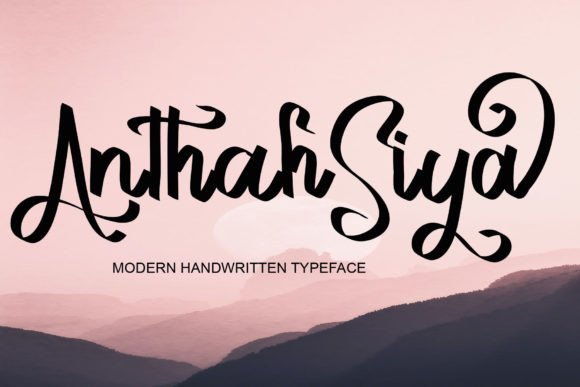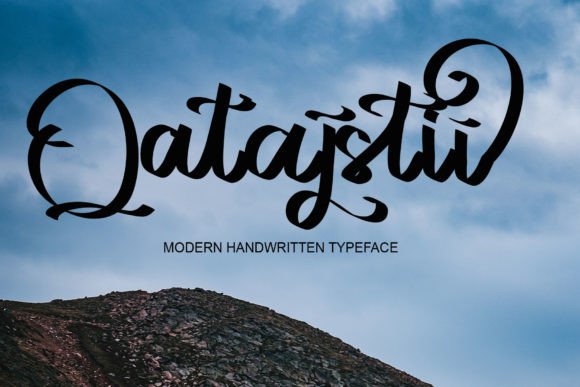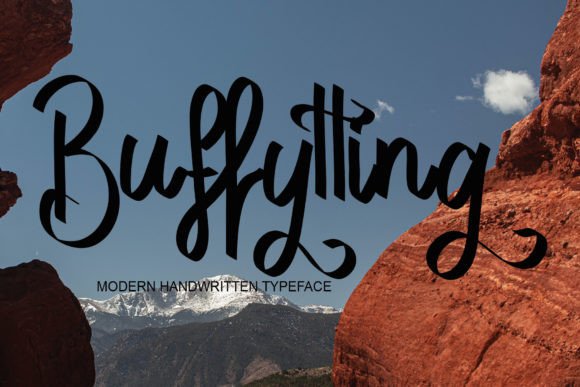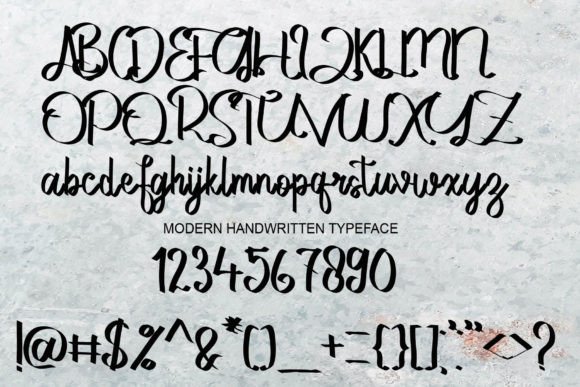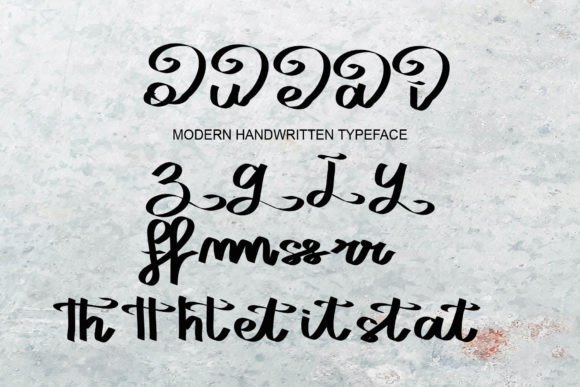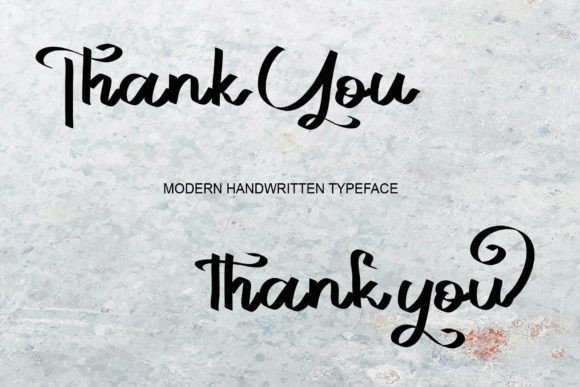
The Quest for the Perfect Font: Discovering Godstya
I’ll never forget the time I was working on a wedding invitation project, and my client asked for a font that was both simple and stylish. I scoured the internet, trying out font after font, but nothing seemed to fit the bill. That was until I stumbled upon Godstya, a beautifully hand-written font created using a tablet. In this article, I’ll share my journey with Godstya, and explore its features, uses, and alternatives.
A First Impression: What I Love About Godstya
Godstya is a font that exudes simplicity and elegance. Here are a few things that I love about it:
- ✨ Handwritten charm: Godstya has a unique, handwritten feel that adds a personal touch to any design project.
- ✅ Versatility: This font can be used for a wide range of projects, from websites and wedding invitations to business cards and advertisements.
- 💻 PUA encoded: Godstya is PUA encoded, which means you can access all of the glyphs and swashes with ease, giving you even more creative freedom.
While Godstya is an excellent font, there are a few quirks to be aware of:
- 🤔 Limited font weights: Godstya is available in a limited number of font weights, which may not be suitable for all design projects.
- ⚠️ Glyph compatibility: Some glyphs may not be compatible with certain software or platforms, so be sure to test them before use.
The Story Behind Godstya: Designer Inspiration
Godstya was created by a talented designer who wanted to craft a font that was both simple and stylish. Using a tablet, they carefully designed each glyph and swash to create a unique, handwritten feel. The result is a font that’s perfect for designers, crafters, and creative hobbyists looking for a versatile and elegant font.
| Font Name | Godstya Font |
| Author | Canden Meutuah |
| What is Godstya? | Godstya is a handwritten font created using a tablet. It’s simple, stylish, and versatile. |